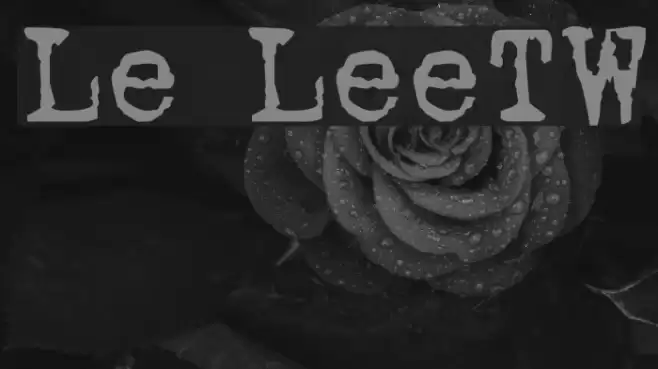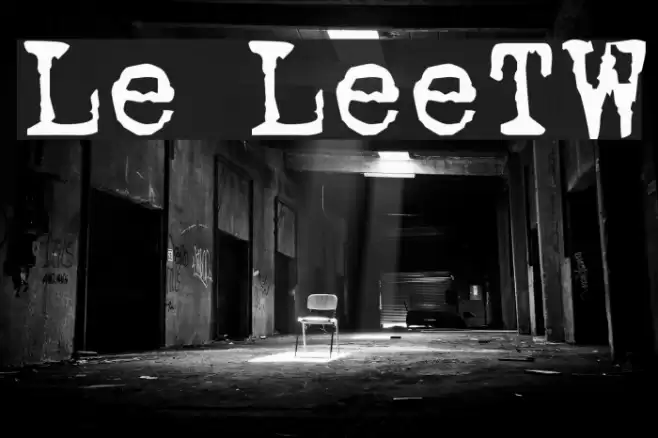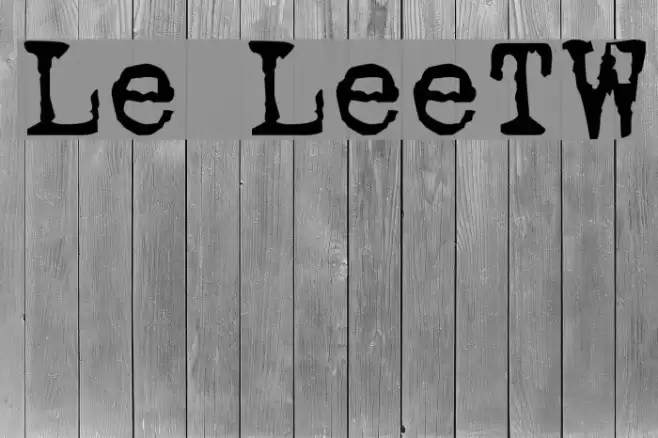
Love LetterTW Font
Love LetterTW Description
This font exudes a rugged, distressed aesthetic reminiscent of vintage typewriter text. Each character appears as if it has been stamped or printed with slight imperfections, giving it a unique, handcrafted feel. The uppercase and lowercase letters maintain a consistent style, with bold, uneven strokes that suggest a sense of urgency and rawness. The numbers and special characters follow the same design, ensuring a cohesive look across all elements. This font's irregularities and bold presence make it stand out, perfect for projects that require a touch of nostalgia or a gritty, authentic vibe.
A rugged, distressed font with a vintage typewriter aesthetic from Typewriter fonts.
- Proposed Projects: Ideal for vintage-themed posters, album covers, book titles, or any design needing a raw, authentic touch.
- Overall Style: Vintage